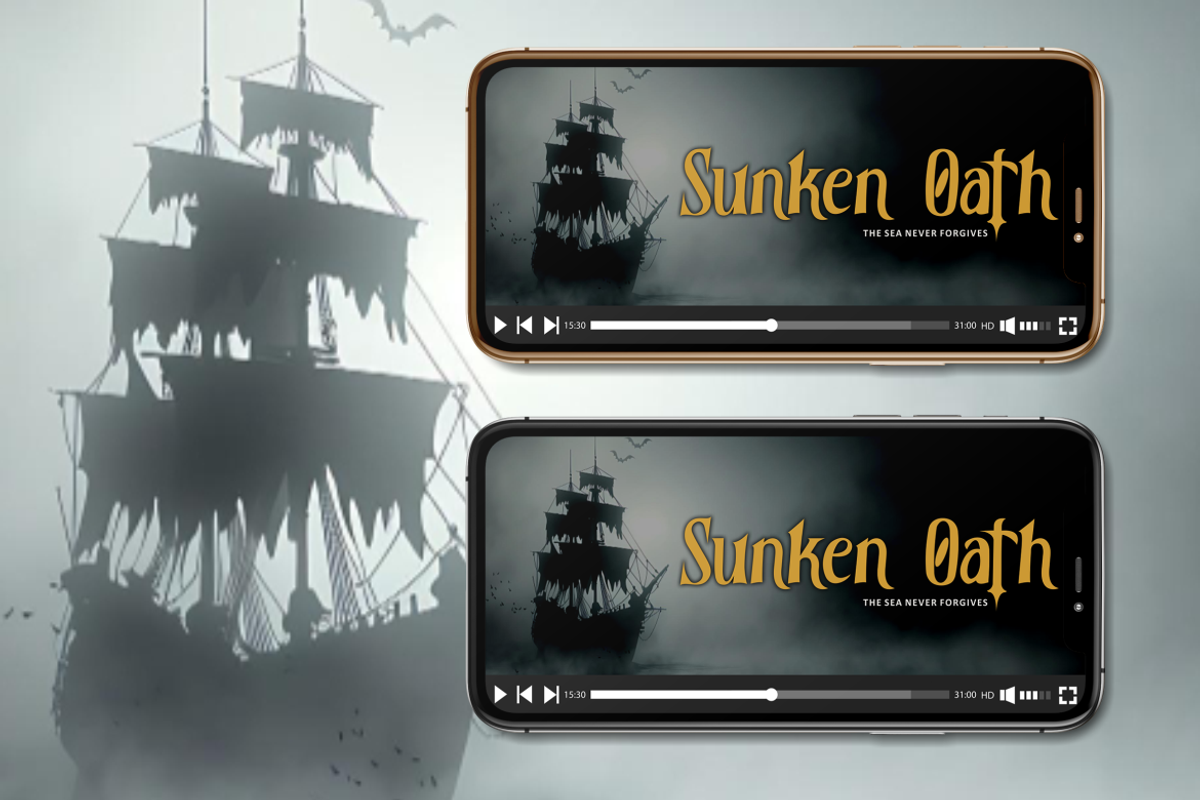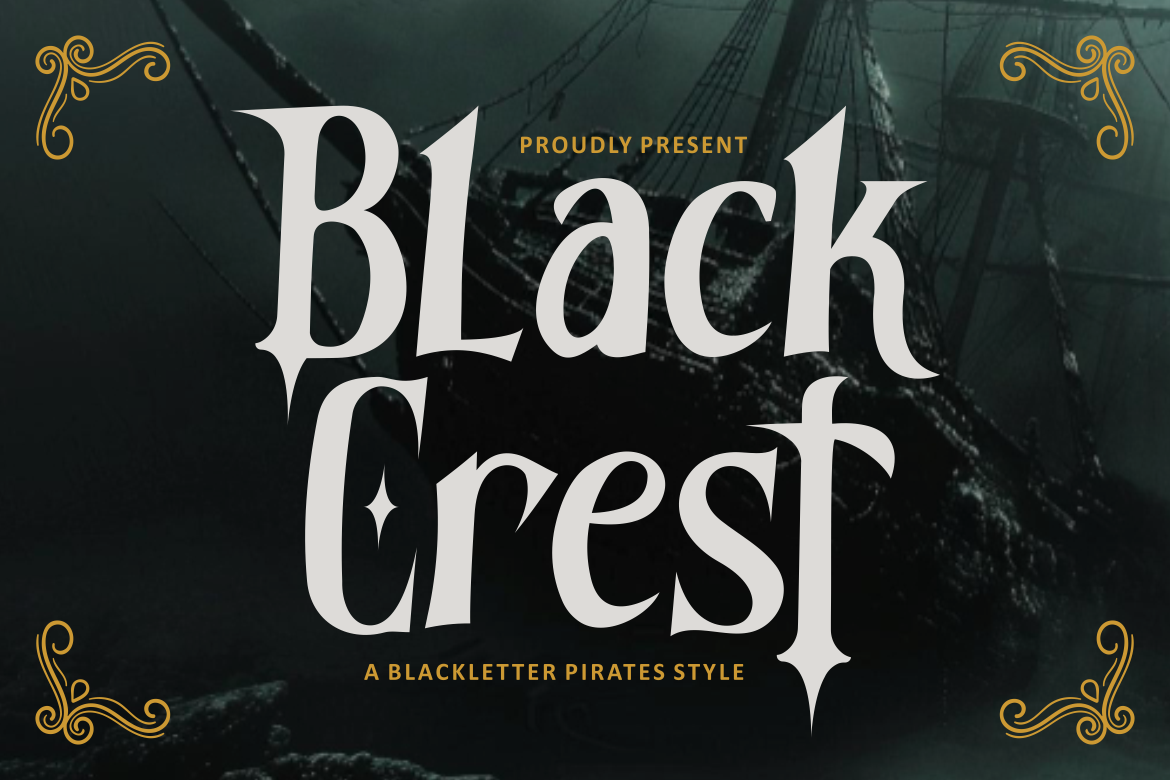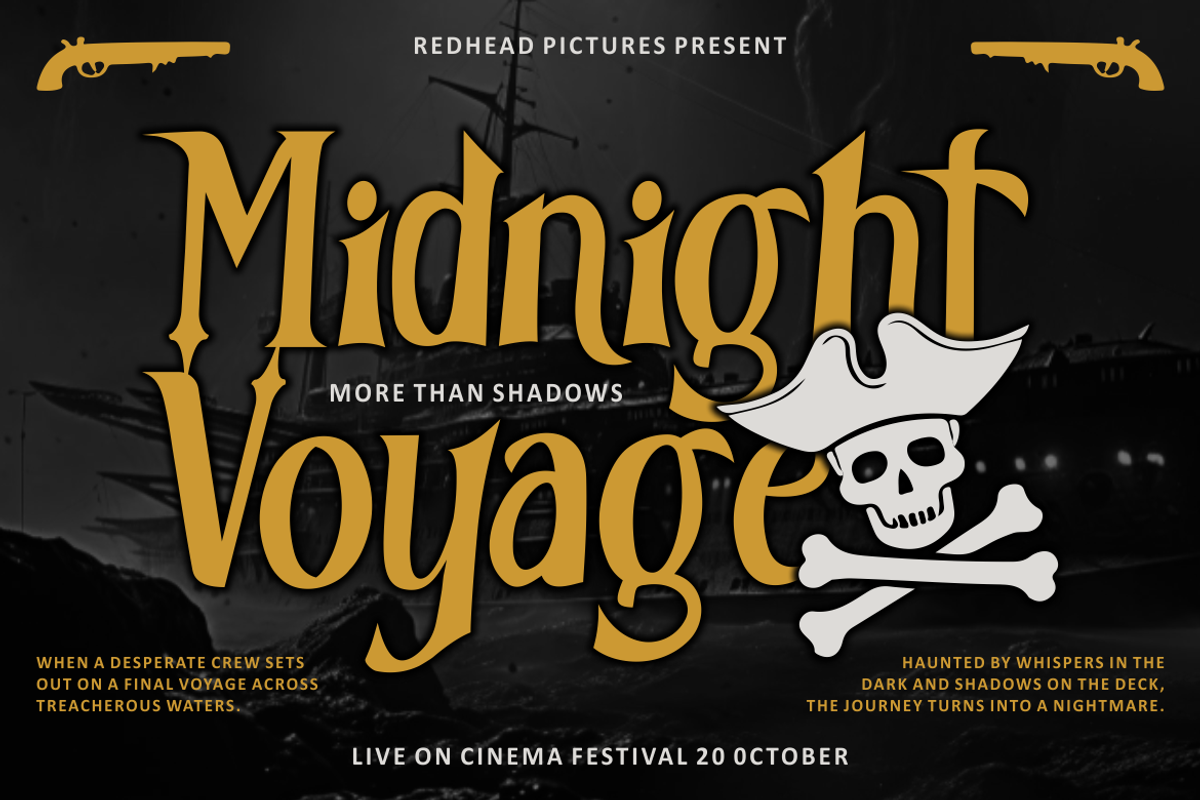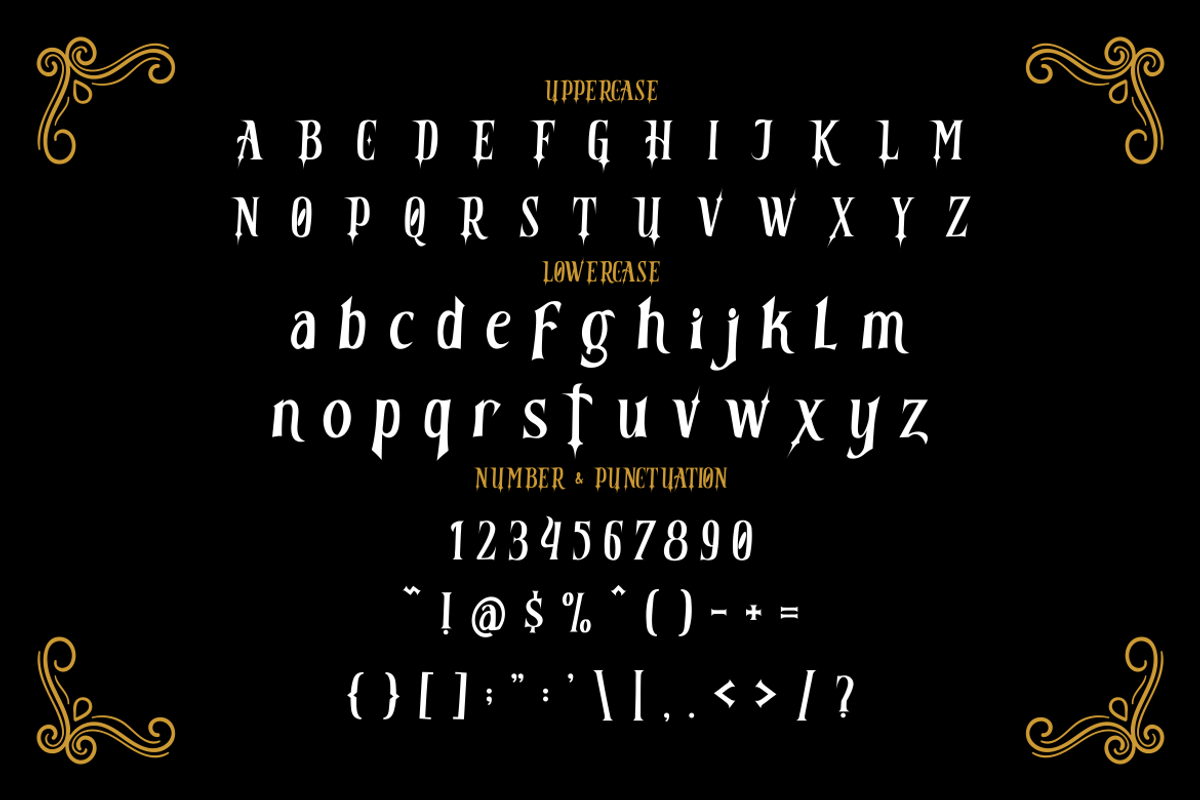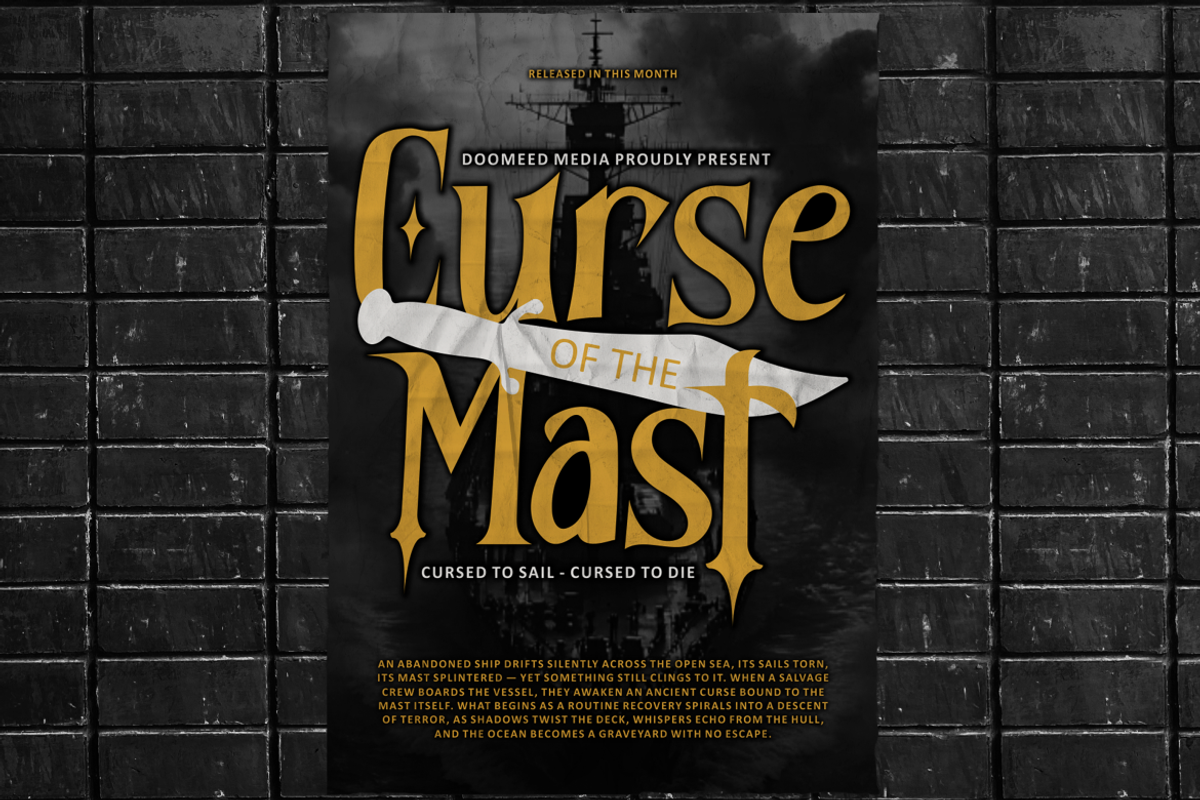
Black Crest Pirates Font
Black Crest Pirates Font is a bold blackletter display typeface that captures the mysterious and fearless spirit of pirate-era design. Its letterforms are tall and slightly condensed, with sharp curves and pointed serifs that resemble the edges of old blades and sails against stormy seas. The contrast between thick and thin strokes adds depth and drama, giving each character a striking, gothic presence. Smooth curves meet angular cuts to create a font that feels historical yet powerful. The proportions are balanced, allowing strong legibility while maintaining a sense of old-world craftsmanship and intensity. It’s a font made for storytelling — one that commands attention in every design it touches.
Perfect for logos, movie titles, posters, branding, and book covers, Black Crest Pirates Font evokes the essence of dark tales, adventure, and mystery. It’s ideal for projects needing a touch of gothic luxury or vintage fantasy aesthetics. This font fits seamlessly in packaging, editorial layouts, and promotional materials that aim to convey heritage and bold character. Its ornamental yet clean structure makes it both classic and cinematic, suitable for creative designers who want to add a sense of power and intrigue to their work.